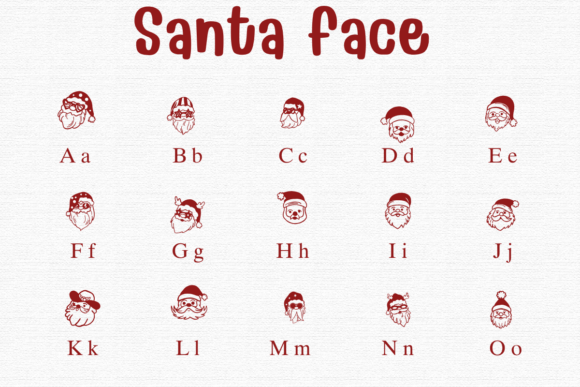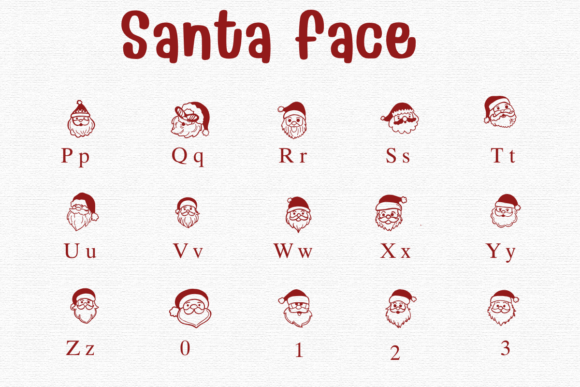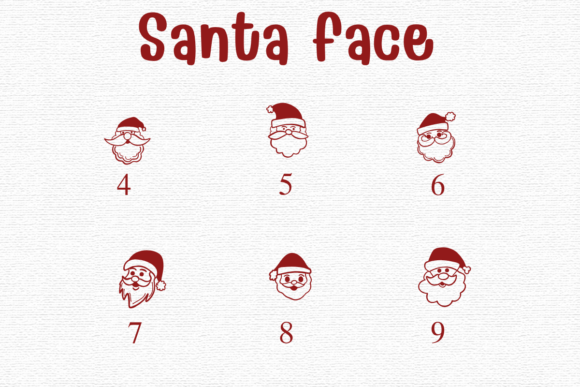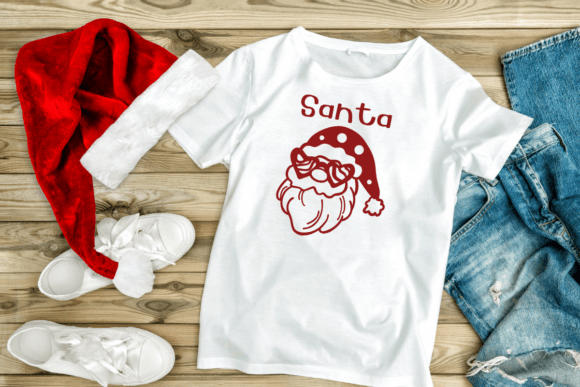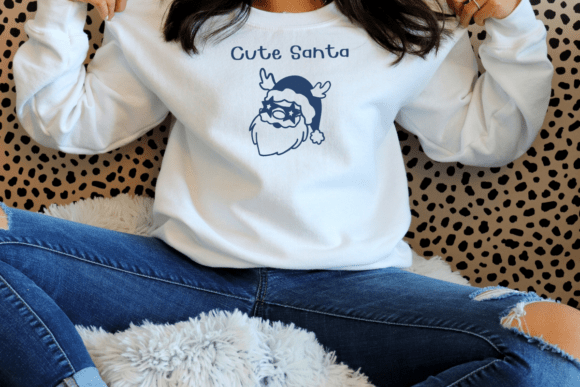
Introduction to Santa Face Font
As you’re brainstorming ideas for your upcoming holiday party or wedding invitation, you might find yourself stuck in a creative rut. You want something that captures the festive spirit, but nothing seems quite right. That’s where the magic of the Santa Face Font comes in.
This delightful dingbats font is a treasure trove of creative possibilities, offering a range of fun and playful designs that are perfect for enhancing your projects. Whether you’re a seasoned designer or a DIY enthusiast, the Santa Face Font is an invaluable resource that can help you bring your ideas to life.
Key Features of Santa Face Font
- High-quality design resource perfect for creative projects, including holiday and winter-themed designs.
- Unique, playful design featuring a smiling Santa Claus face, ideal for adding a festive touch to your designs.
- Perfect for use in digital and print projects, including social media graphics, posters, and greeting cards.
Honest Review: Santa Face Font
I recently stumbled upon the Santa Face Font while searching for a unique design resource for my holiday-themed creative project. I was excited to see that it’s available for free download, which was a major plus. The font itself is a fun and playful take on the classic Santa Claus design, with a high-quality, transparent background that makes it perfect for any winter wonderland-inspired project.
- ✨ Unique and festive design: The Santa Face Font is sure to bring a smile to anyone’s face, and its festive design makes it perfect for holiday-themed projects.
- ✨ High-quality font: The font is well-designed and looks great on any background, making it a great addition to any creative project.
- ⚠️ Limited customization options: While the font itself is great, there are limited customization options available, which may limit its use in certain projects.
- ⚠️ May not be suitable for all audiences: The font’s festive design may not be suitable for all audiences, particularly those who don’t celebrate the holiday season.
Overall, I was impressed with the Santa Face Font and would recommend it to anyone looking for a unique and festive design resource. With a little creativity, it can be used in a variety of projects, from holiday cards to social media graphics. Just be sure to consider the limitations and audience before using it in your next creative project.
The Santa Face Font is perfect for holiday-themed designs, such as Christmas cards, gift tags, and social media posts. You can also use it in designs for winter-themed parties, snowflake crafts, and festive food packaging.